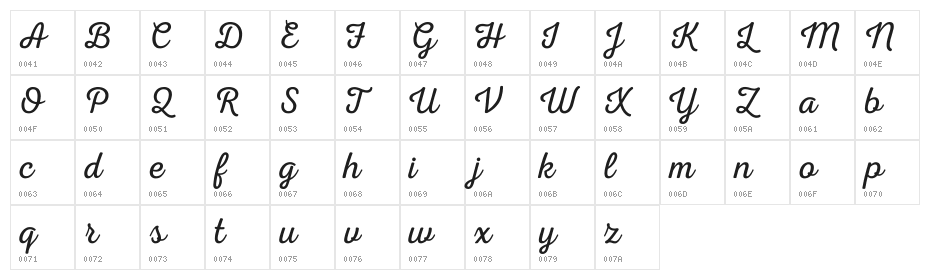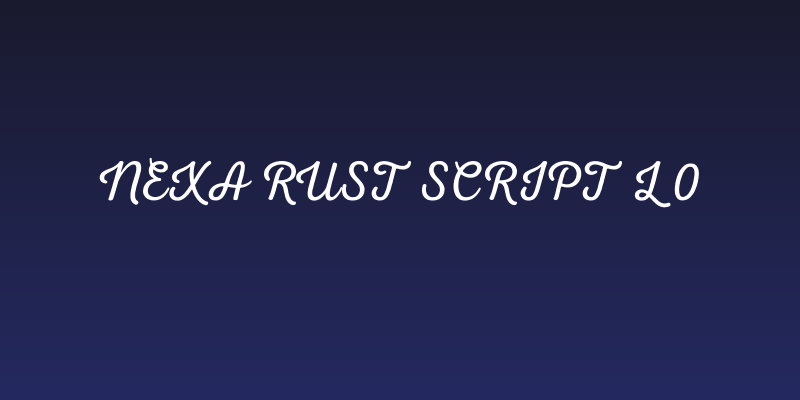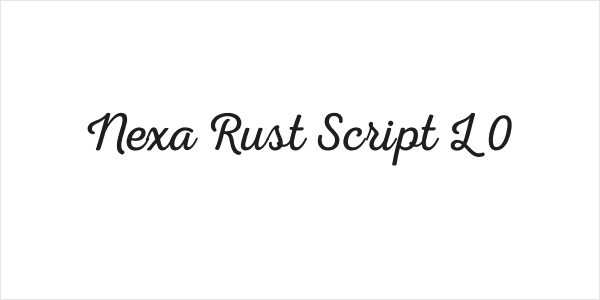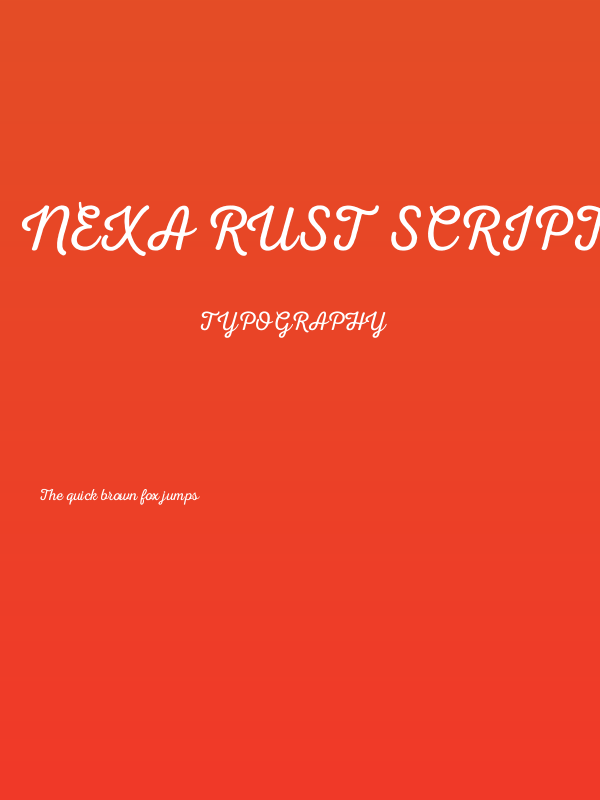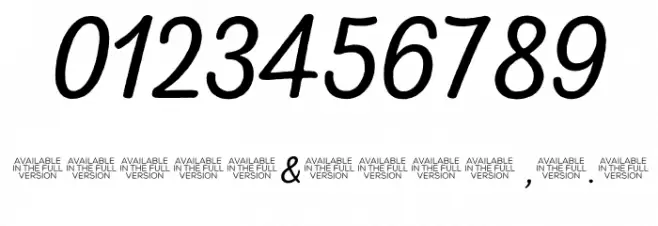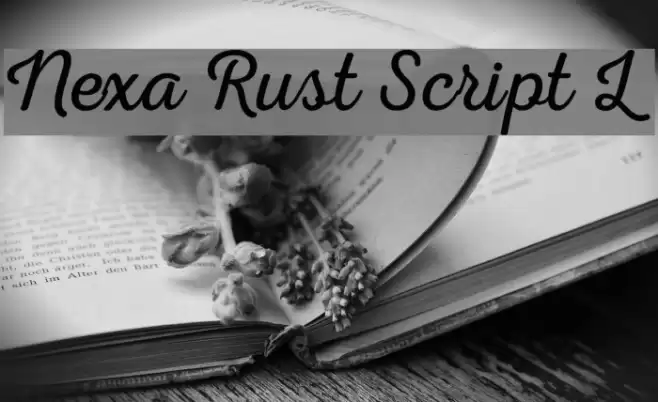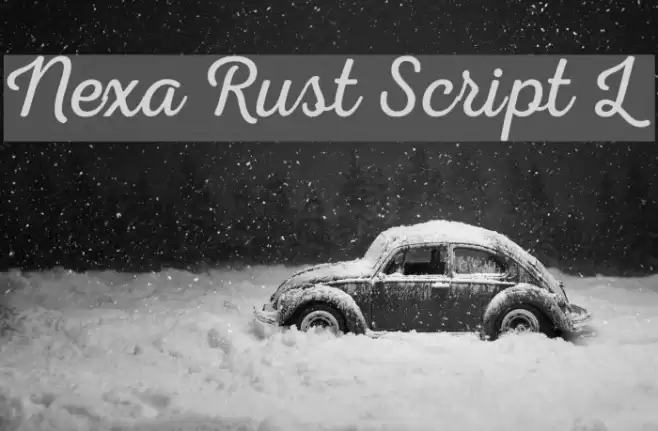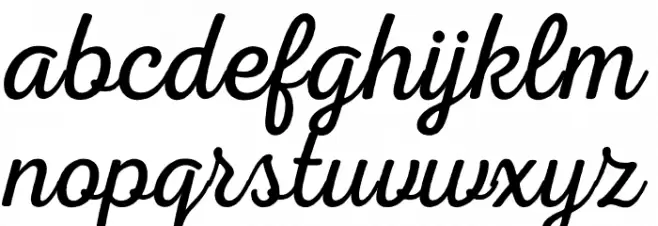
Nexa Rust Script L 0 Font
Nexa Rust Script L 0 Description
This font exudes a casual and friendly vibe with its flowing, cursive script style. The characters are well-rounded and connected, giving it a handwritten appearance that is both approachable and stylish. The uppercase letters maintain a consistent height, while the lowercase letters feature smooth curves and loops, enhancing its legibility. The numerals are bold and clear, matching the overall aesthetic of the alphabet. Special characters are included, maintaining the same fluidity and charm. This font is perfect for projects that require a personal touch, such as invitations, greeting cards, or branding materials that aim to convey warmth and creativity.
| Overall Style | Casual, Handwritten |
| Use Case | Headlines, Logos, Invitations |
| Proposed Projects | Ideal for invitations, greeting cards, branding, and creative projects. |